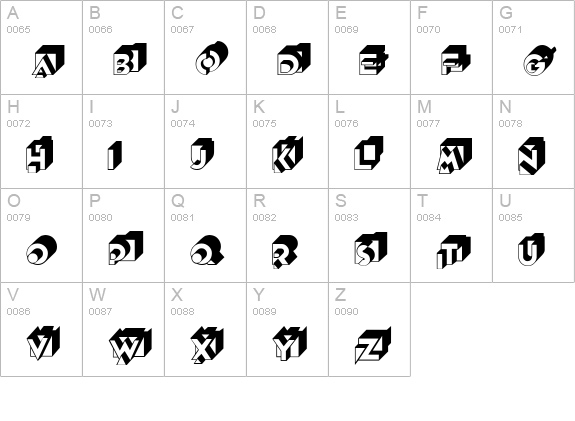
Knockout Initials Font Details
Knockout Initials font is an exquisite and captivating typeface that effortlessly combines elegance with a touch of vintage charm. Designed to make a lasting impression, this font is perfect for adding a sophisticated and personalized touch to any project. With its intricate and intricate letterforms, Knockout Initials font captures attention and demands to be noticed. Each character is meticulously crafted to exude an air of refinement, making it an ideal choice for logos, branding, invitations, and other creative endeavors. One of the standout features of Knockout Initials font is its versatility. Whether you're designing for a formal event or a modern brand, this font seamlessly adapts to any style, effortlessly elevating your designs to new heights. And the best part? Knockout Initials font is available for free! Yes, you read that right. This remarkable font can be freely downloaded from FontsMarket.com, making it easily accessible to everyone. So why wait? Enhance your designs with the elegance and sophistication of Knockout Initials font today.